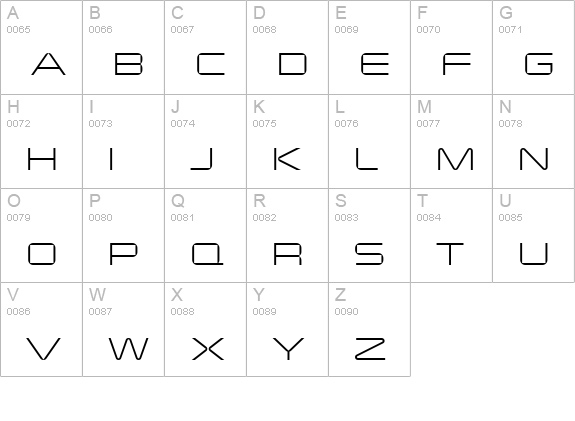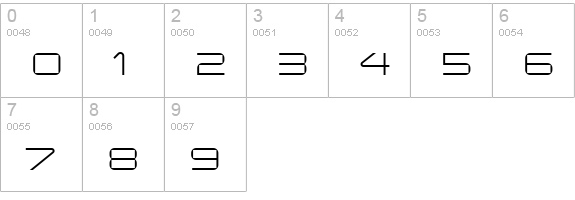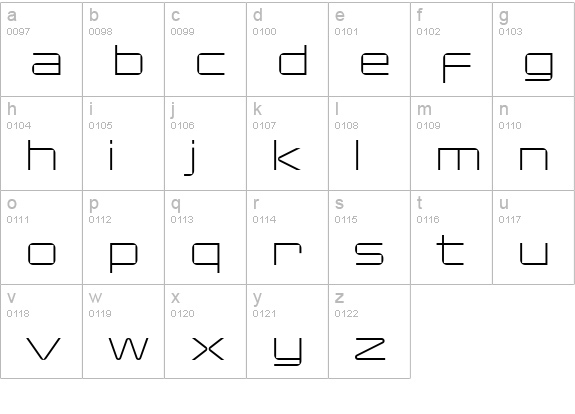
Changeling Light Font Details
Changeling Light is a refined, elegant variant in the Changeling typeface family \xE2\x80\x94 well suited to elegant body text, refined sub-headings, and luxury branding.
Changeling Light font is a whimsical and elegant typeface that exudes a sense of magic and charm. Its delicate curves and unique letterforms make it perfect for adding a touch of fantasy to your designs. This font is versatile and can be used for a variety of projects, from invitations and greeting cards to logos and branding. What sets Changeling Light font apart is its ethereal and enchanting quality, making it a standout choice for those looking to add a mystical element to their work. Whether you're creating a fairy tale-inspired design or simply want to infuse a sense of wonder into your project, this font is sure to captivate your audience. The best part? Changeling Light font is available for free download at FontsMarket.com, making it accessible to anyone looking to elevate their designs with a touch of magic. Don't miss out on this opportunity to add a bit of enchantment to your next project with Changeling Light font.